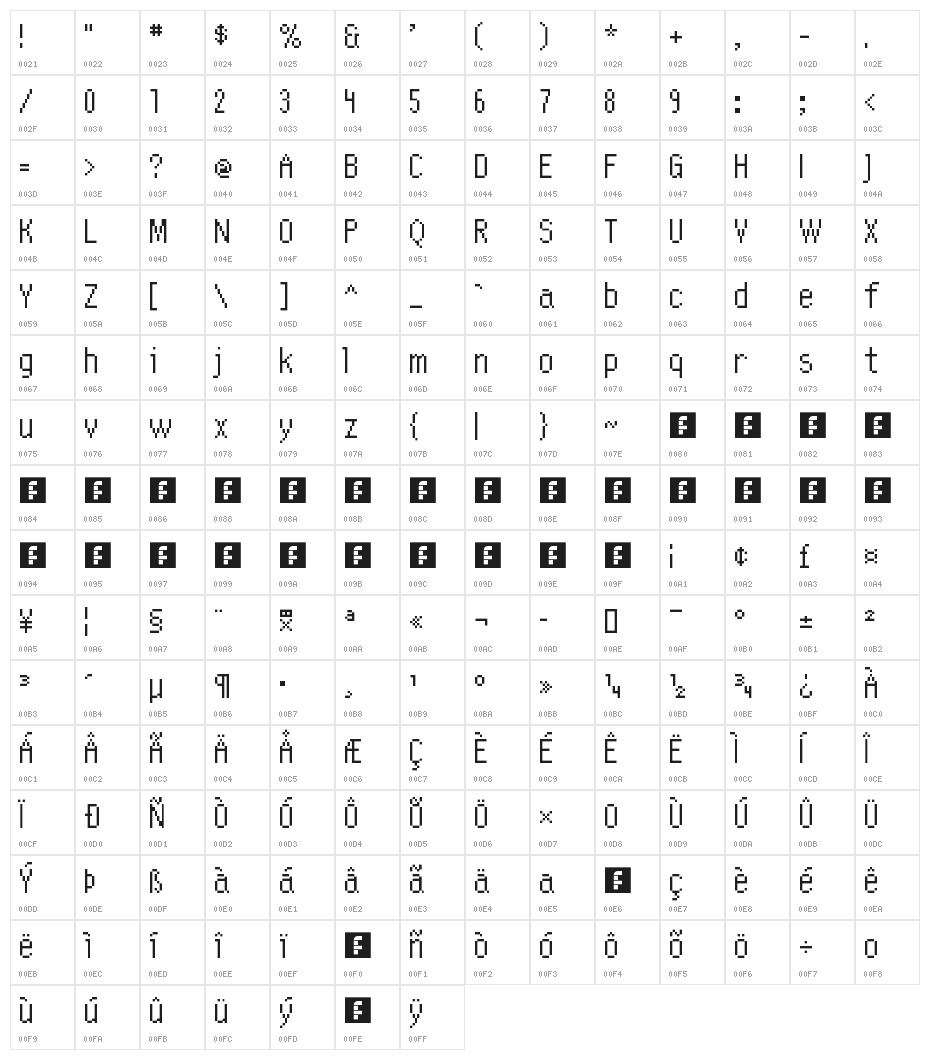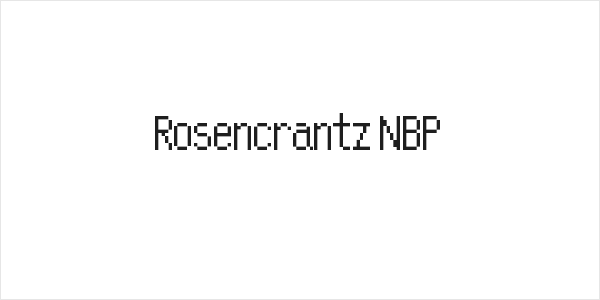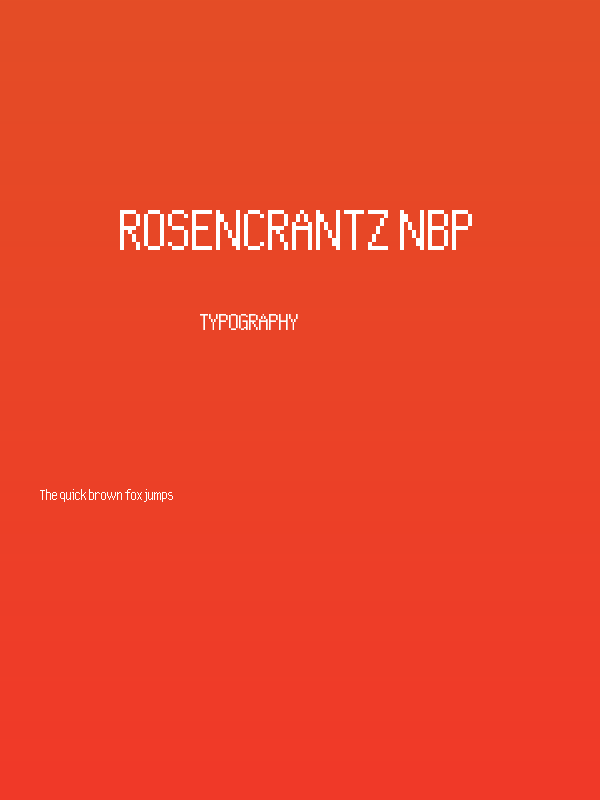
Rosencrantz NBP Font
Rosencrantz NBP Description
This font features a pixelated, grid-like design reminiscent of early digital displays and retro video games. Each character is constructed with a uniform width, giving it a monospaced appearance. The geometric shapes and sharp corners contribute to its digital aesthetic, making it ideal for projects that require a nostalgic or tech-inspired look. The uppercase and lowercase letters maintain a consistent height and width, enhancing readability while preserving the font's unique style. Numbers and special characters are designed with the same pixelated precision, ensuring a cohesive visual experience across all text elements.
| Overall Style | Retro, Digital |
| Use Case | Headlines, Logos, Digital displays |
| Proposed Projects | Ideal for retro video game designs, digital art projects, tech-themed posters, and any creative work that seeks a nostalgic or digital feel. |